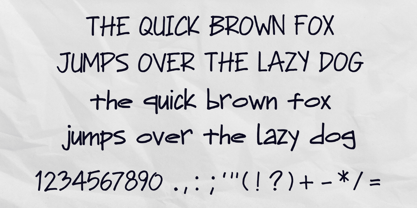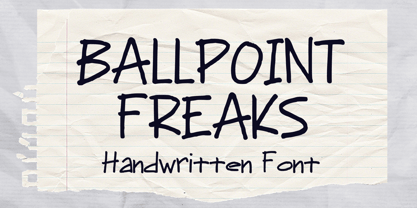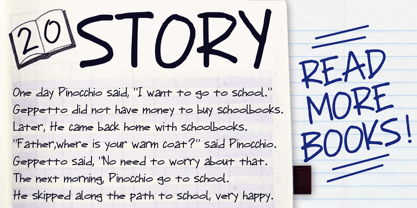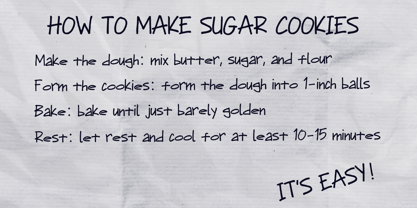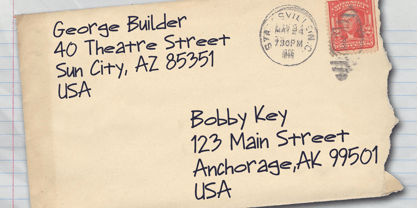
Ballpoint Freaks
The Ballpoint Freaks Font Family was designed by Gabriel Valentinus and published by Mvmet. Ballpoint Freaks contains 1 styles. More about this family
Introducing Ballpoint Freaks, a vibrant and lively font that adds an extra dash of fun to everyday use. Perfectly expressive and highly versatile, it infuses creative projects with a unique spark, transforming them from ordinary to extraordinary. It's even more fun when used in all uppercase! Ballpoint Freaks is the ideal choice for a multitude of design avenues—whether for lively stickers, trendsetting t-shirt graphics, standout logo creations, captivating book or magazine covers, comic productions, or whimsical cartoon sketches—this font excels in every application! With Ballpoint Freaks, you're not just designing; you're elevating your work and adding that unbeatable 'cool' factor!
Mvmet is an Indonesia-based font studio which began making fonts in early 2020. Mvmet strives to make fonts fun and accessible for both the average computer user and professional designers, with original experimental fonts and affordable trend-setting commercial fonts. Mvmet also creates custom fonts for companies who want exclusive rights and a specific design for a typeface. Clients who have used Mvmet’s custom font services include some company in Indonesia and abroad.